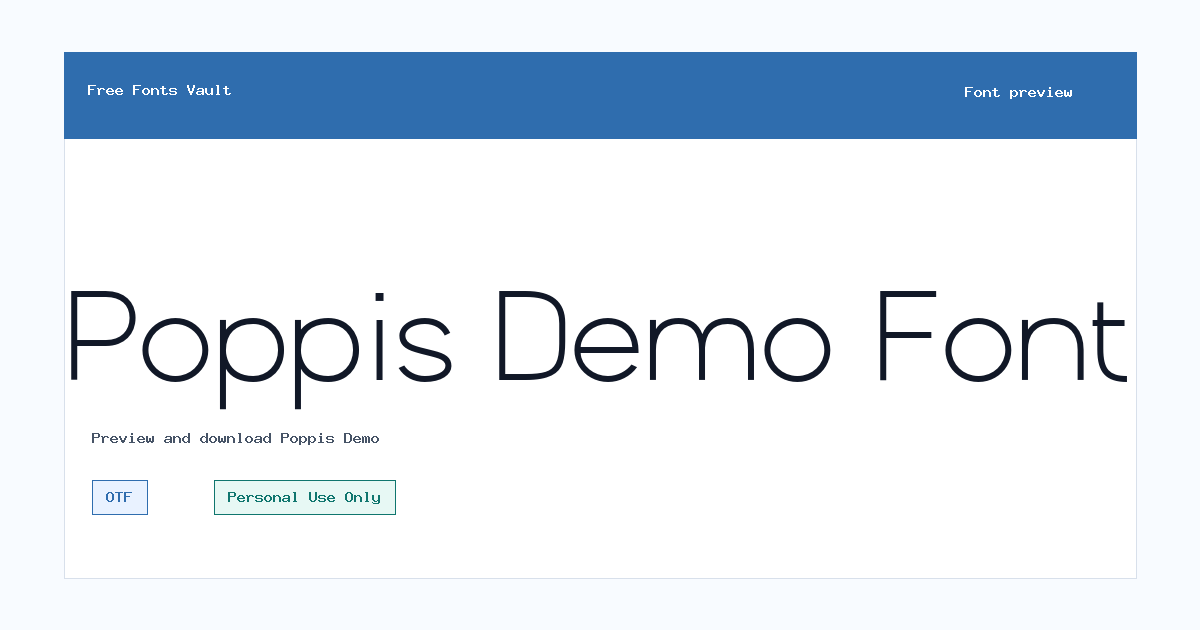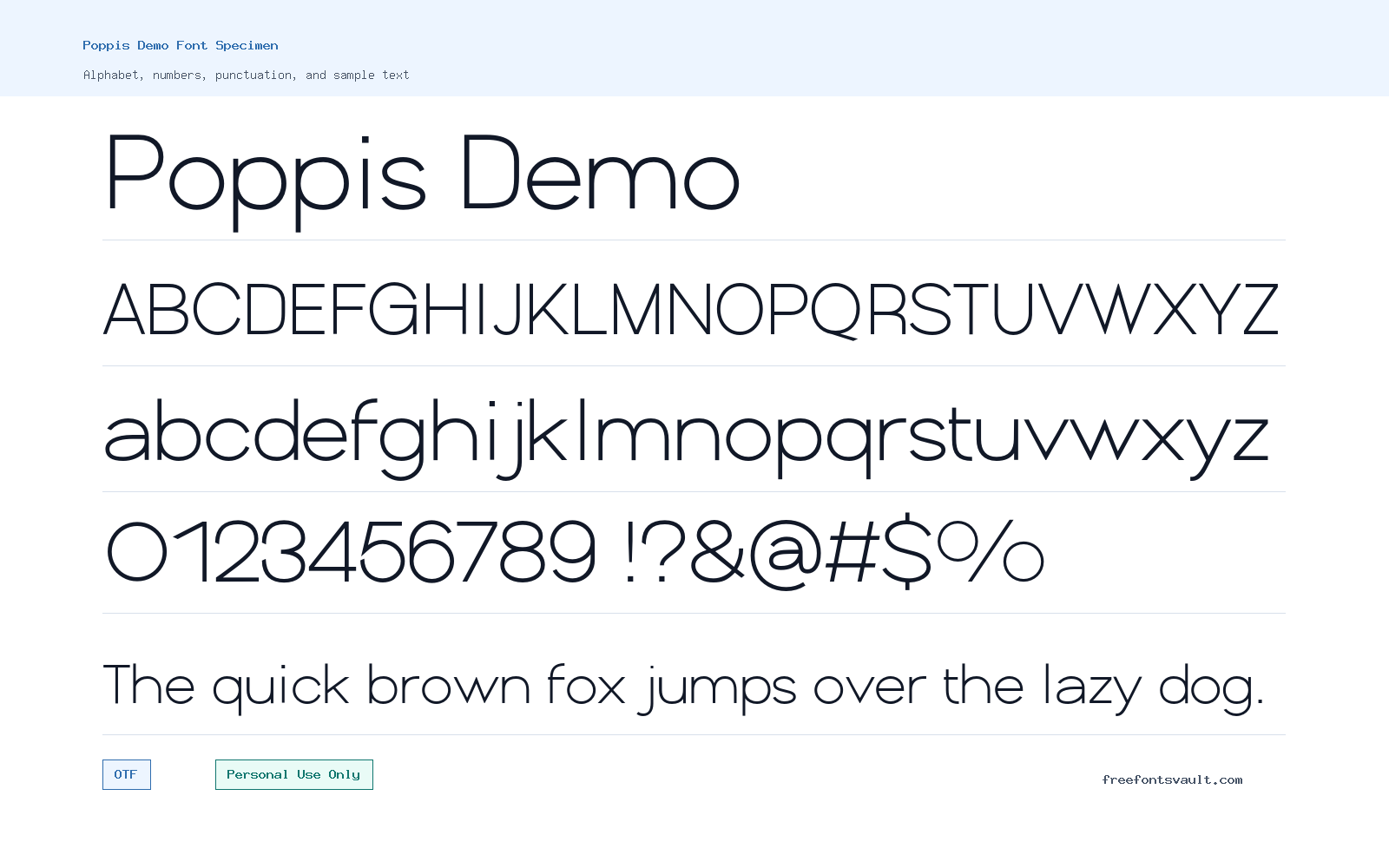
Poppis Demo
Poppis Demo font preview showing the family name
Poppis Demo Font
Poppis Demo font specimen showing alphabet, numbers, and sample text
Poppis Demo font.
Poppis Demo is a clean geometric sans serif font made for testing the look of the Poppis family before using it in finished work. Its simple structure, round forms, and regular weight make it useful for previews, mockups, headings, and short design samples.
About Poppis Demo
Poppis Demo represents the regular 400 style of Poppis, a modern geometric sans serif family from Authentype. The design has the balanced, circular feel people often look for in geometric type: straight stems, open spacing, and letter shapes that feel orderly without becoming too decorative. That makes it easy to test in logos, landing page headers, social graphics, packaging drafts, portfolio layouts, and brand concept boards. Because the available file is an OTF font in a normal regular style, it is best approached as a practical preview font rather than a full production family. Use it to see how the tone of Poppis works with your words, colors, and layout system.
In use, Poppis Demo is likely to work best where the text is short and the layout gives the letters room to breathe. Try it first in brand names, short headlines, menu labels, app screens, poster titles, quote cards, presentation covers, and clean editorial headings. The regular weight can also be tested in short paragraphs, but always check readability at the final size. Geometric sans serif fonts can look crisp and modern in display settings, yet some letter shapes may feel too uniform in dense body copy. For longer reading, pair Poppis Demo with a more neutral text face or use it only for headings and labels while another font carries paragraphs.
The full Poppis product page describes the wider Poppis family as a modern geometric sans serif with multiple weights, broad language support, and OpenType features. Those details are useful when deciding whether the paid family may fit a larger identity system, but they should not be assumed for every demo file. If your project needs Cyrillic, Greek, Vietnamese accents, ligatures, symbols, webfont files, app embedding, or several weights for a complete hierarchy, check the official license and full family package before final delivery. The demo is a good first step for visual testing, but professional work usually needs the correctly licensed version and the exact formats required for print, web, or app use.
A good way to evaluate Poppis Demo is to type the real words you plan to use, not only alphabet samples. Test uppercase logos, mixed-case headlines, numbers, punctuation, and short calls to action. Look at spacing around round letters, how numbers sit beside letters, and whether repeated shapes make your text feel clean or too mechanical. In logo drafts, try small tracking changes and compare the result at both large and small sizes. In interface mockups, test button labels, navigation items, and form headings. In packaging or poster work, check whether the regular weight has enough presence, or whether a heavier licensed style from the full family would be a better fit.
• Geometric sans serif appearance with clean structure, rounded rhythm, and a modern display-friendly tone.
• Useful for short text settings such as logos, titles, labels, web mockups, social graphics, and presentation covers.
• Connected to the broader Poppis family from Authentype, whose official page describes multiple weights and extended language support in the full product.
• Logo drafts and brand concept previews where a clean geometric sans serif is needed.
• Website hero headings, landing page mockups, UI labels, and app screen concepts.
• Social media graphics, quote cards, poster titles, and presentation cover designs.
• Packaging roughs, product label concepts, and editorial layouts that need a simple modern headline face.
Is Poppis Demo good for body text?
It can be tested in short paragraphs, but it is safer for headings, labels, and display use. For long reading, check spacing and readability carefully, or pair it with a neutral text font.